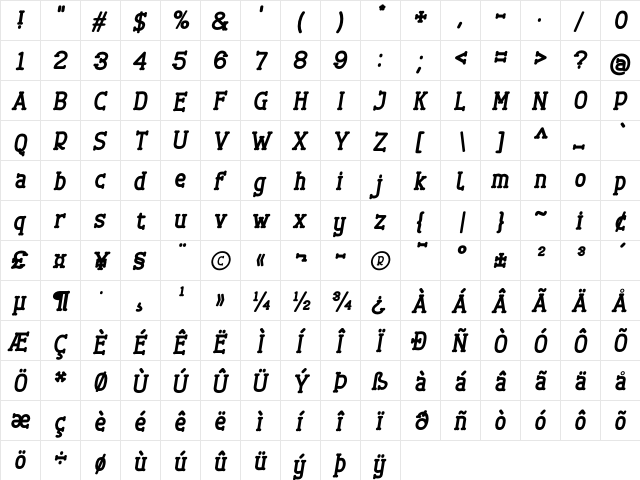
Cherrytha Two Italic
| Designer | Jasman Nazara; Situjuh Nazara |
Design Context for Cherrytha Two Typeface
Cherrytha Two is a composed and adaptable typeface that performs quietly and consistently across a wide range of design contexts. Its italic angle brings a sense of urgency and motion to the letterforms.
Pro Tip: Use Cherrytha Two for emphasis, pull quotes, and subheadings where its slanted energy can add rhythm to the layout.